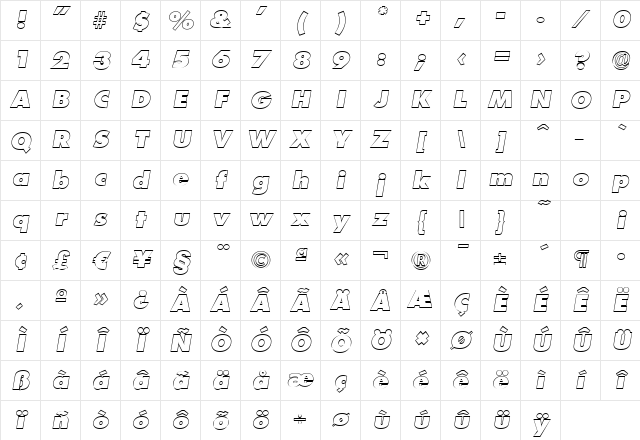
PeterBeckerOutline-Heavy Italic
Design Context for PeterBeckerOutline-Heavy
PeterBeckerOutline-Heavy is built around its visual character rather than neutral utility - its distinctive forms are designed to make an impression at display sizes. The slanted form adds forward momentum and visual energy.
Font Pairing: Pair with a clean neutral sans-serif for body copy to let PeterBeckerOutline-Heavy's character lead without overwhelming the composition.
Pro Tip: Use PeterBeckerOutline-Heavy exclusively at display sizes - it was designed to be seen, not read at length. Let a neutral companion handle body copy.